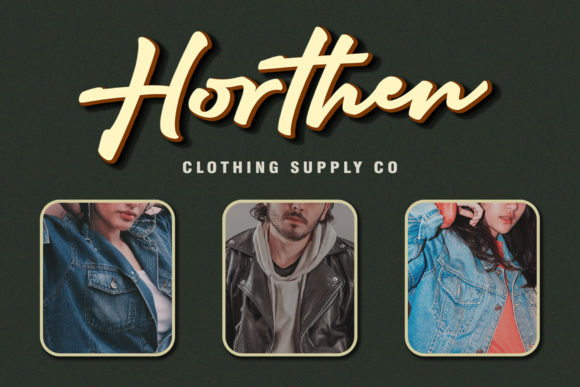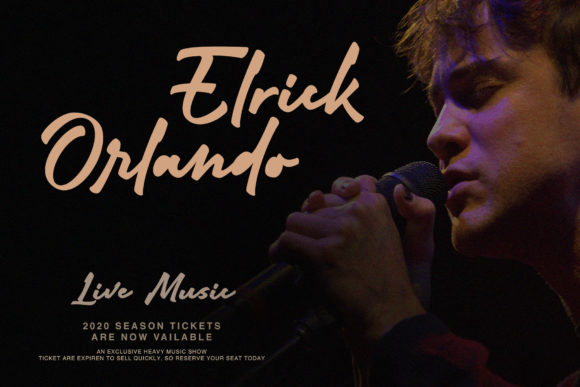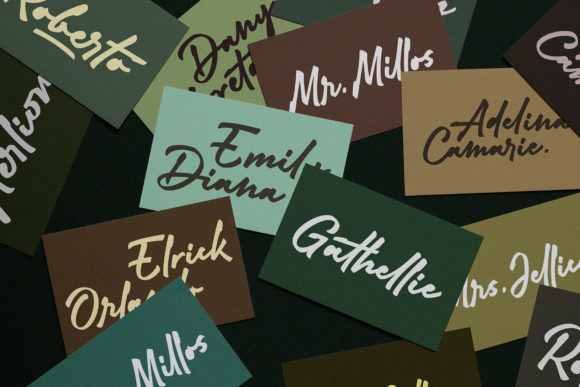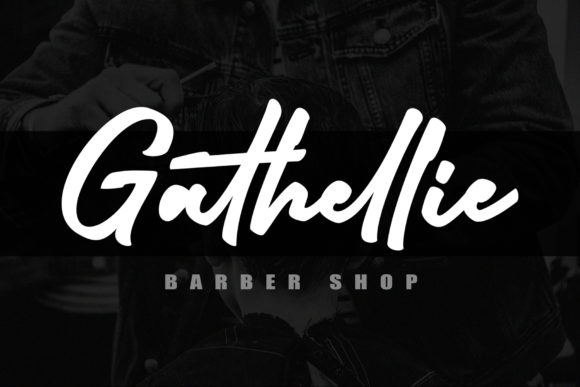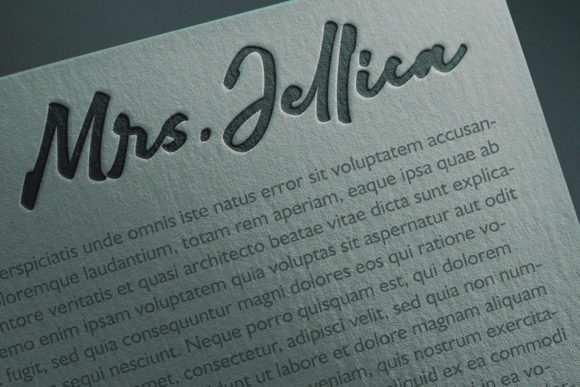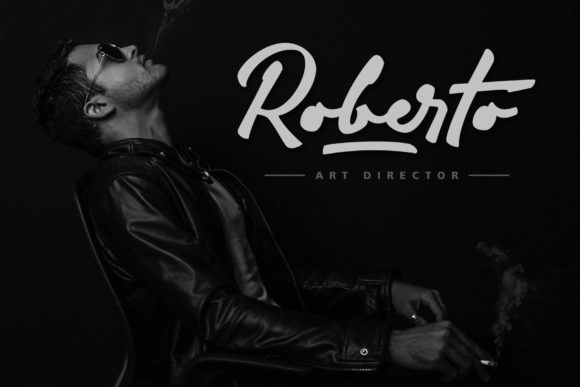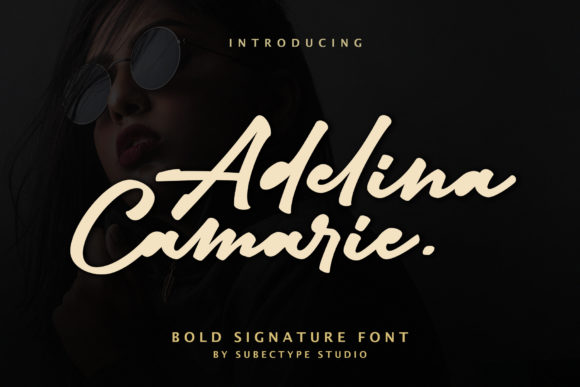
I still remember the frustration of working on a design project, hours spent crafting the perfect layout, only to realize that the font I chose wasn’t quite right. The client wanted something bold and eye-catching, but I was stuck with a font that was, well, boring. That’s when I discovered **Adelina Camarie Font**, a bold signature font with a cool feel that’s perfect for turning any design project into a true piece of art!
An Honest Review of Adelina Camarie Font
- ✨ **Unique and eye-catching design**: Adelina Camarie Font stands out from the crowd with its bold and stylish letters.
- ✅ **High-quality and crisp**: The font is perfectly suited for both digital and print designs, ensuring a professional finish.
- 💡 **Versatile and adaptable**: From logos and branding to social media graphics and posters, Adelina Camarie Font can be used in a variety of design projects.
- 🎨 **OpenType features and glyphs**: The font comes with a range of OpenType features, including stylistic alternates, ligatures, and swashes, giving you plenty of creative options.
While Adelina Camarie Font is an amazing font, there are a few things to keep in mind:
- 🤔 **Limited use in body text**: Due to its bold nature, Adelina Camarie Font is best used for headlines, titles, or short paragraphs. For longer texts, a more readable font would be a better choice.
- ⚠️ **May require manual kerning**: Depending on the design and layout, some manual kerning might be necessary to achieve the perfect spacing between letters.
The Designer Behind Adelina Camarie Font
While the origins of Adelina Camarie Font are shrouded in mystery, it’s clear that the designer was inspired by the world of art and design. With its bold and stylish letters, Adelina Camarie Font is perfect for designers who want to add a touch of personality to their work.
| Font Name | Adelina Camarie Font |
| Author | Subectype |
Q: What is Adelina Camarie Font?
Adelina Camarie Font is a bold signature font with a cool feel, perfect for turning any design project into a true piece of art.
Q: Is Adelina Camarie Font suitable for body text?
No, Adelina Camarie Font is best used for headlines, titles, or short paragraphs due to its bold nature.